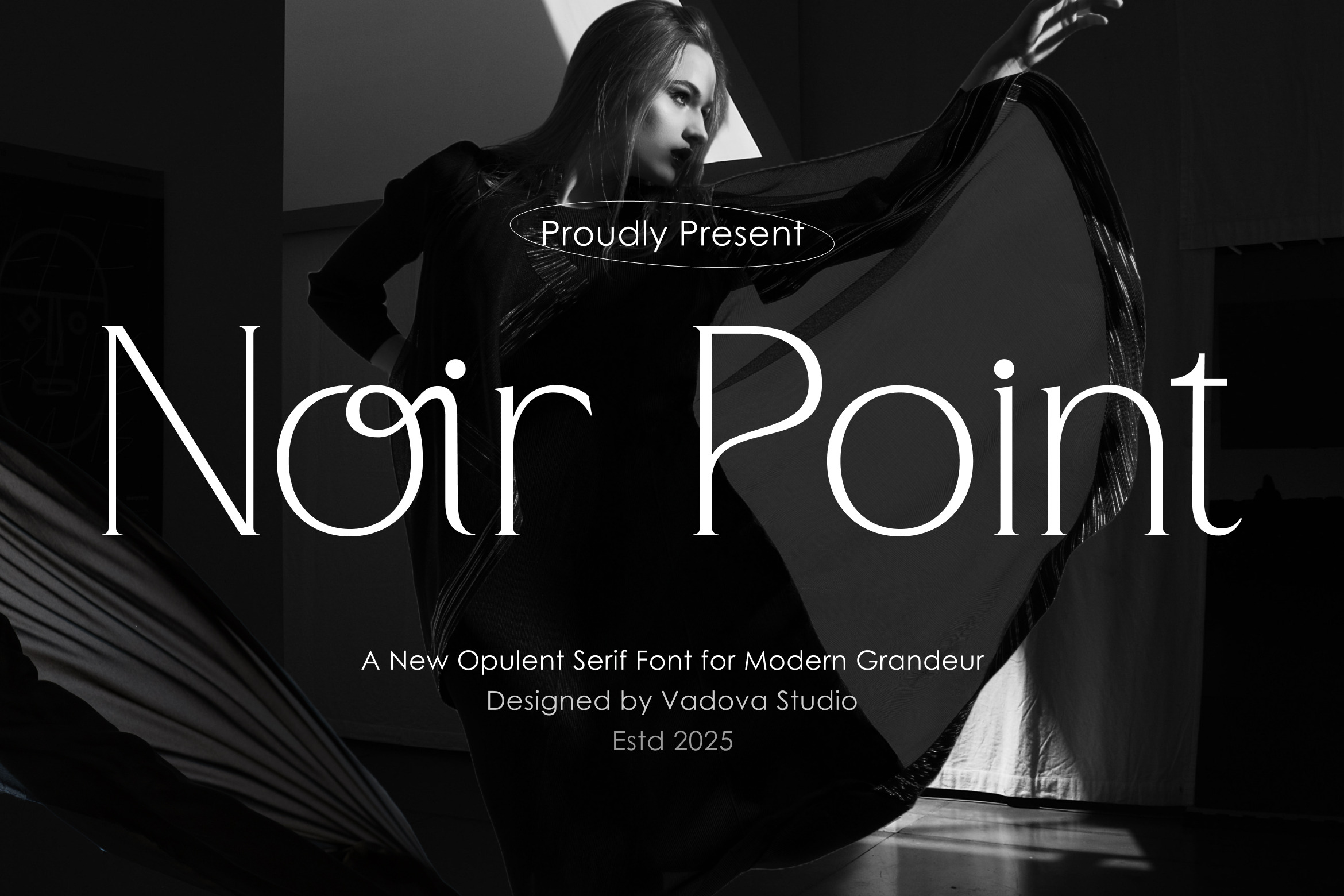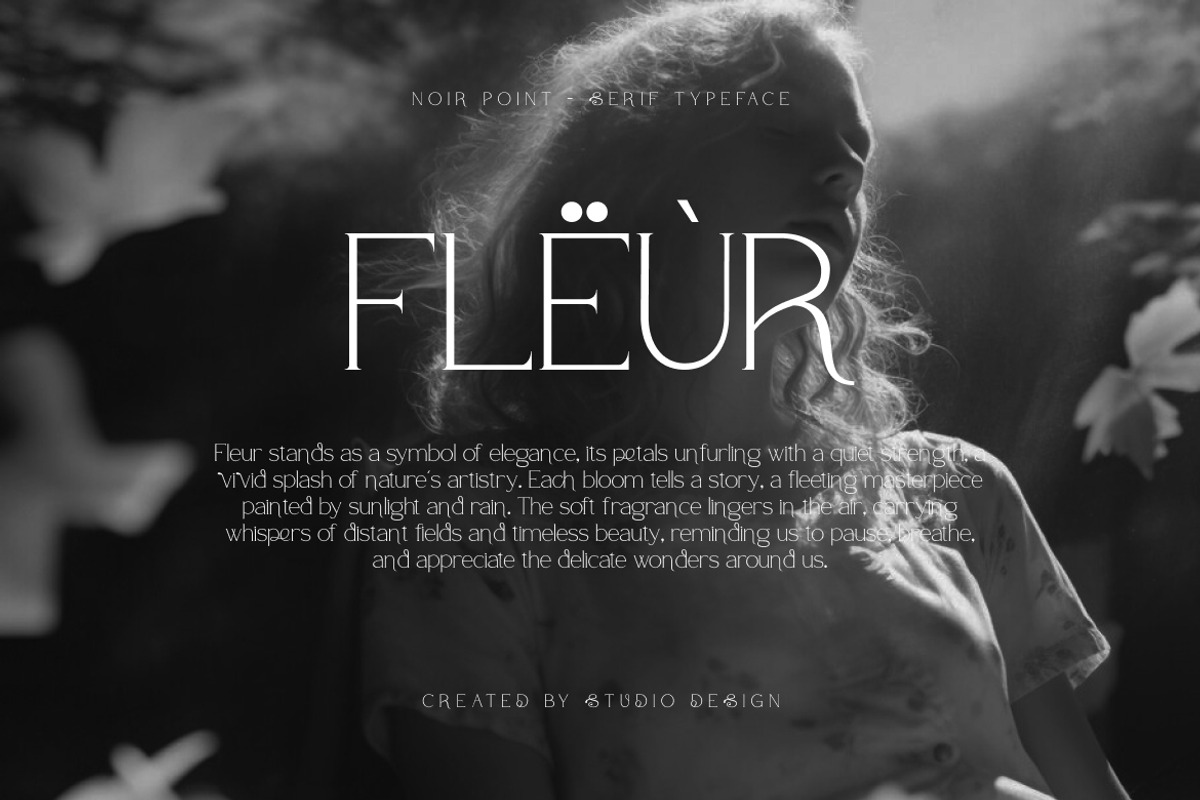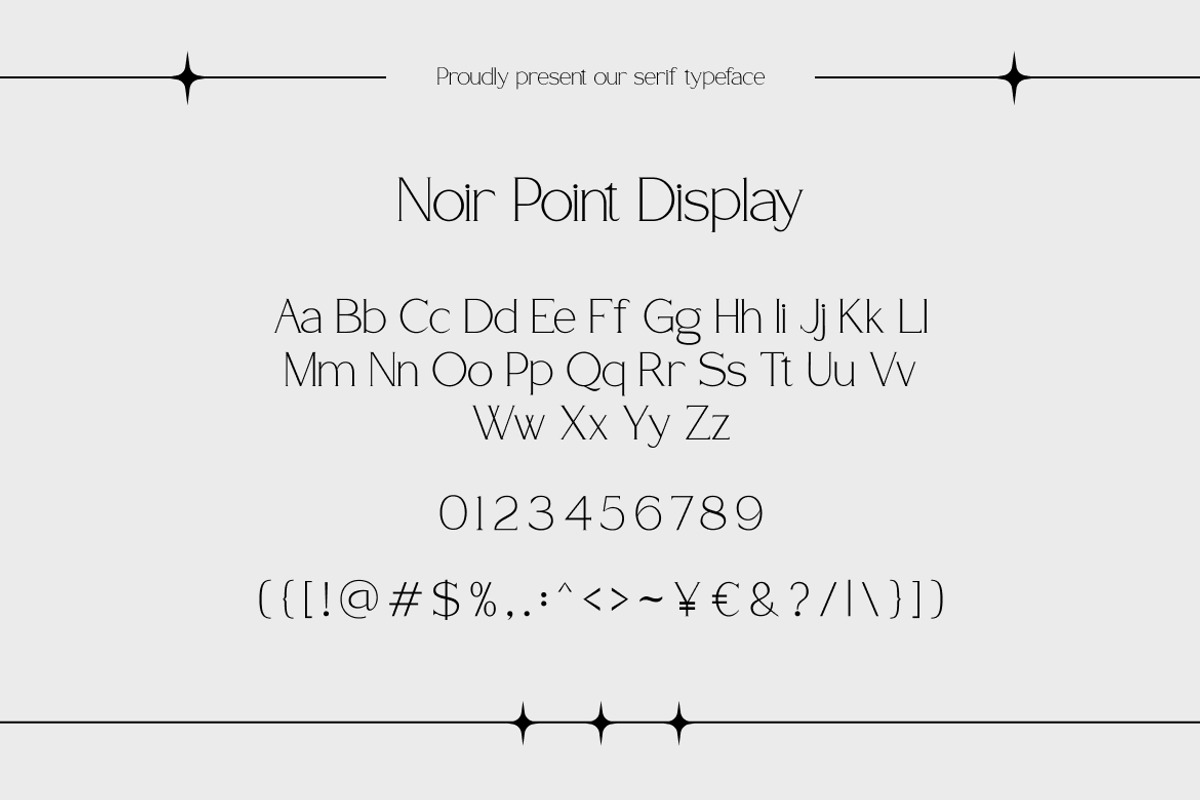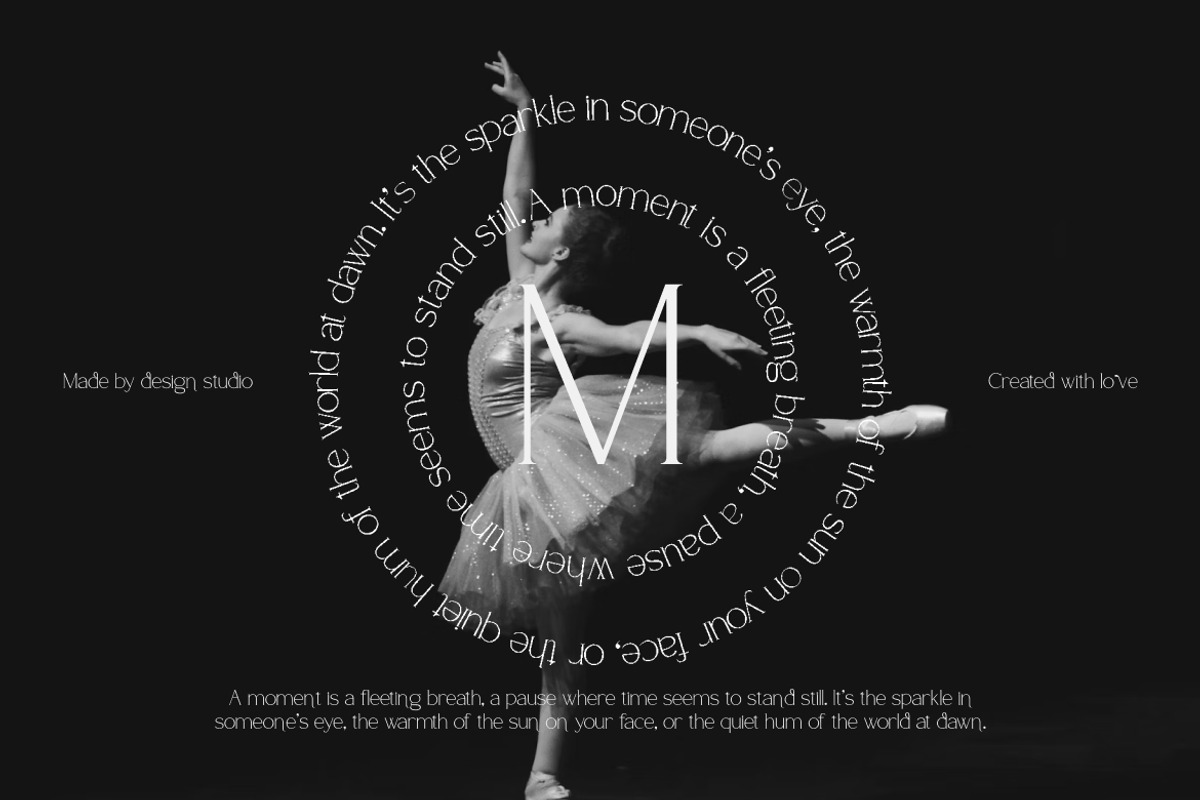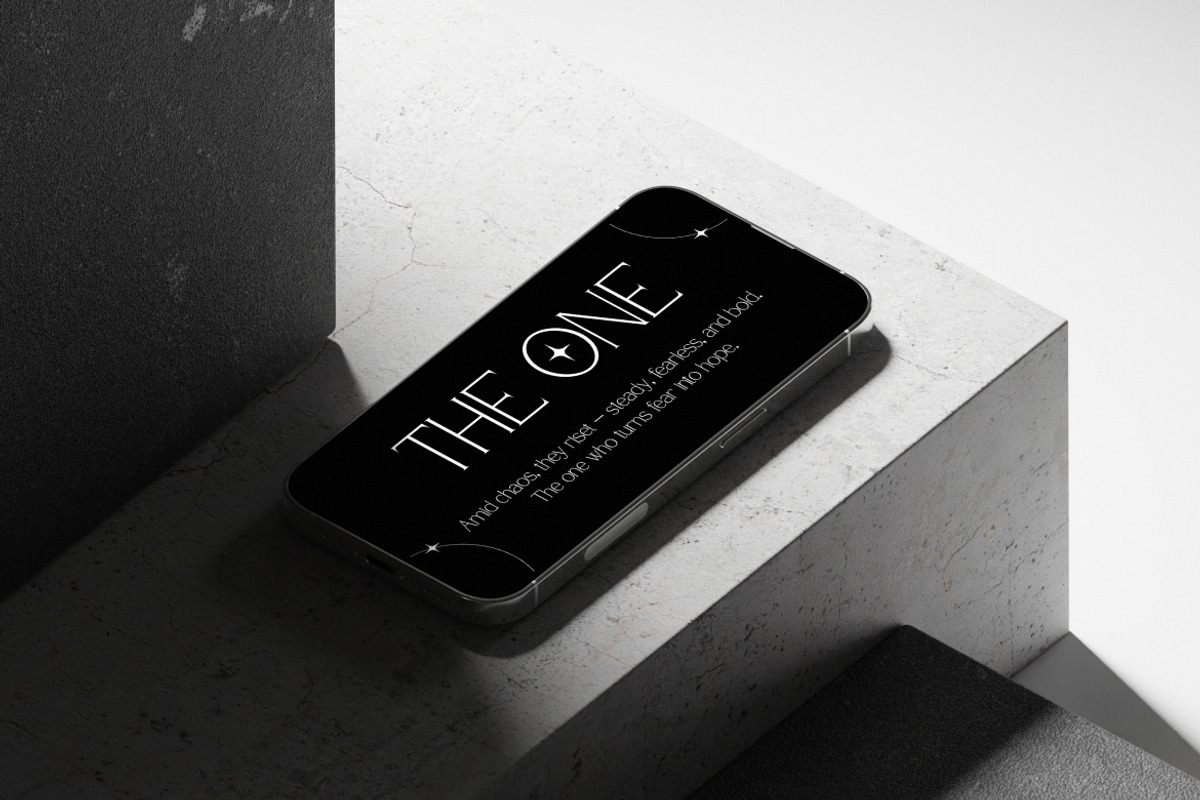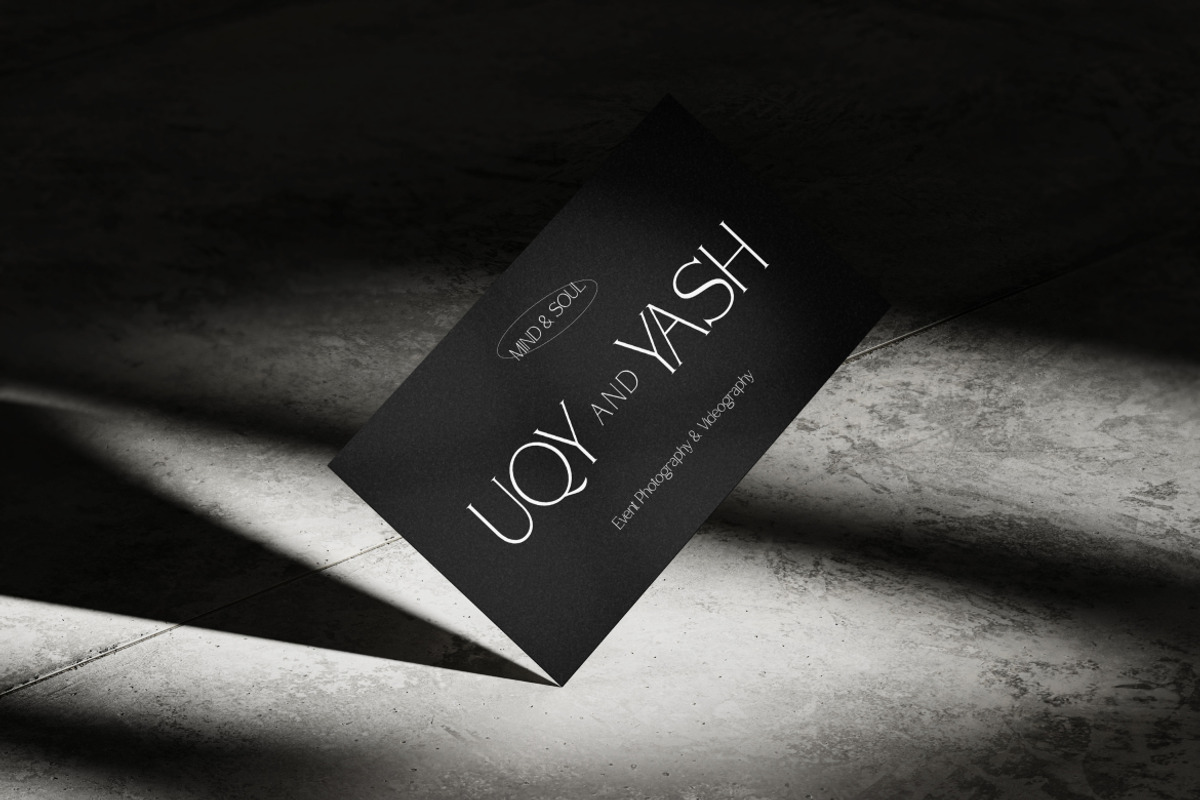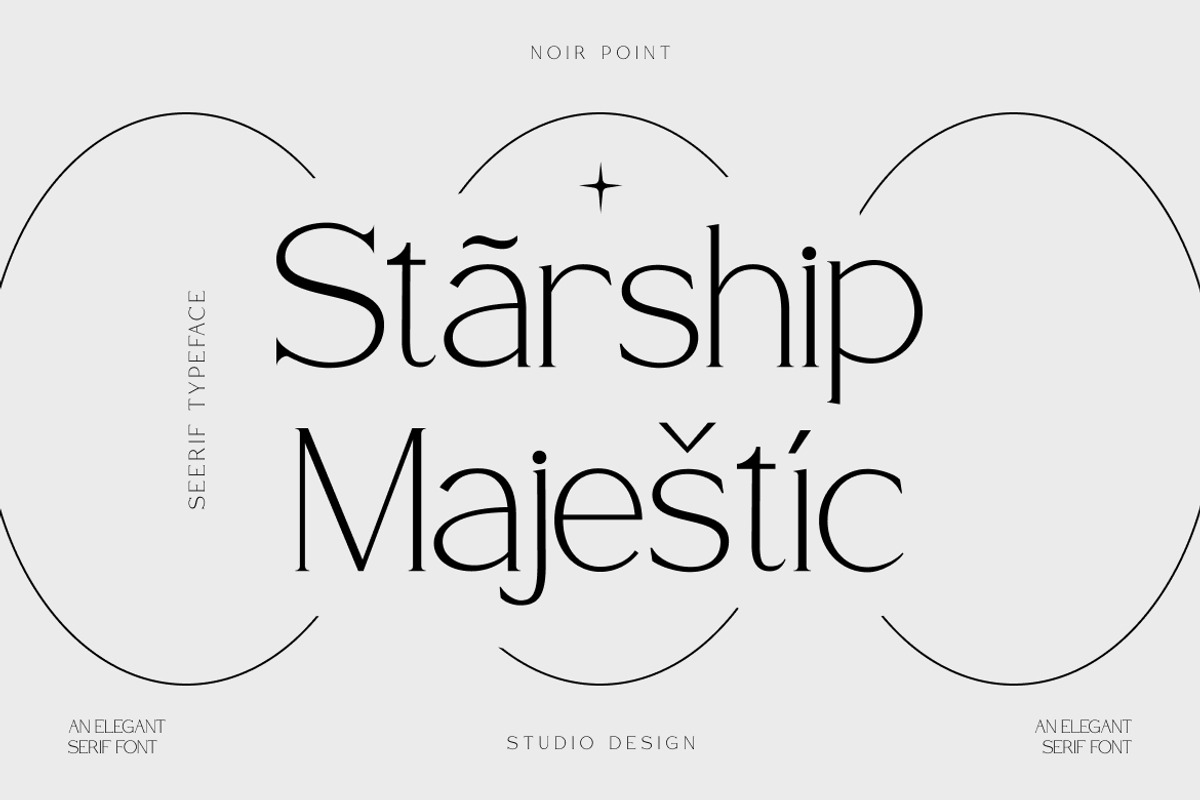
Noir Point – Luxury Serif Typeface
Noir Point is a luxurious serif font crafted to embody modern grandeur and timeless sophistication. Its refined strokes and high-contrast details create a powerful presence, while subtle decorative touches, like the signature looped “o,” add artistic flair and exclusivity. Designed for bold visual statements, this typeface elevates projects with a sense of prestige and elegance.
This typeface captures the essence of high fashion and editorial chic—perfect for projects that demand striking sophistication. Whether for couture branding, premium packaging, luxury magazines, or modern lifestyle campaigns, Noir Point ensures every word leaves a lasting impression of refinement and authority.
Why Designers Love It:
Elegant serif design with artistic ornamental features.
High-contrast strokes for dramatic, stylish appeal.
Perfectly balanced for modern branding and fashion identity.
Unique character details that add exclusivity and creativity.
Best Use Cases:
High-Fashion Branding & Logos
Luxury Editorial & Magazine Covers
Premium Packaging & Labels
Wedding Invitations & Event Stationery
Modern Lifestyle Campaigns
Exclusive Marketing Materials
Step into modern luxury and bold sophistication with Noir Point. More than just a serif, it’s a statement of elegance and power. Transform your designs today with the opulence of Noir Point.